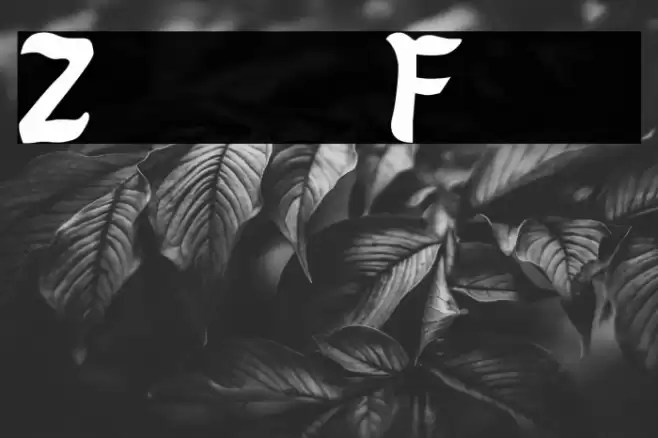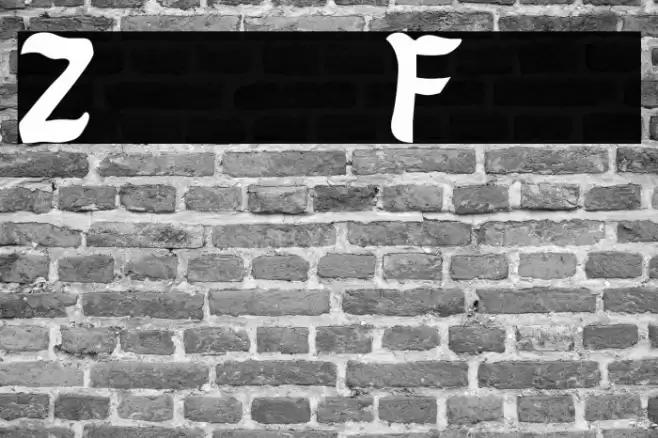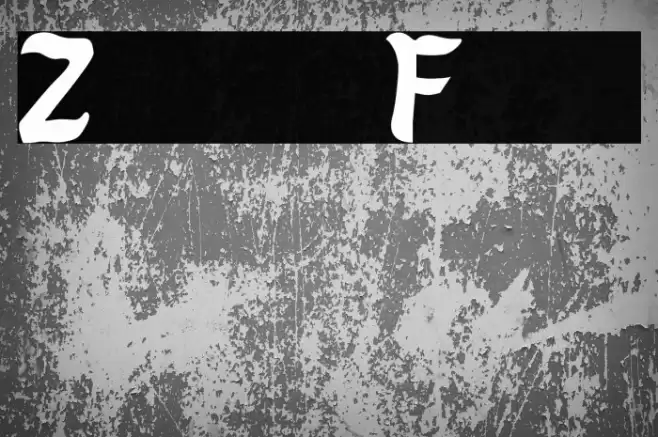
Zenen Font
Zenen Description
This font features a bold and playful style with a strong presence. The characters are rounded and slightly condensed, giving a sense of energy and movement. The strokes are thick and consistent, providing a uniform appearance across all letters. The uppercase letters are particularly striking, with a slight slant that adds a dynamic feel. The special characters maintain the same boldness and style, ensuring consistency throughout. This font is ideal for projects that require a fun and engaging look, such as children's books, posters, or branding for playful products.
A bold, playful font with rounded, slightly condensed characters from Regular fonts.
- Proposed Projects: Children's books, playful posters, branding for fun products.
- Overall Style: Playful, Energetic